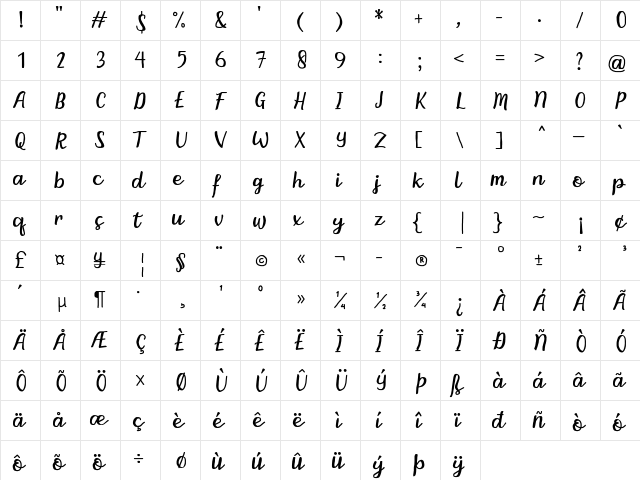
Bintar Regular
| Foundry | 7NTypes |
| Designer | Andrian Dehasta, Situjuh Nazara |
Design Context for Bintar Typeface
Bintar is a composed and adaptable typeface that performs quietly and consistently across a wide range of design contexts.